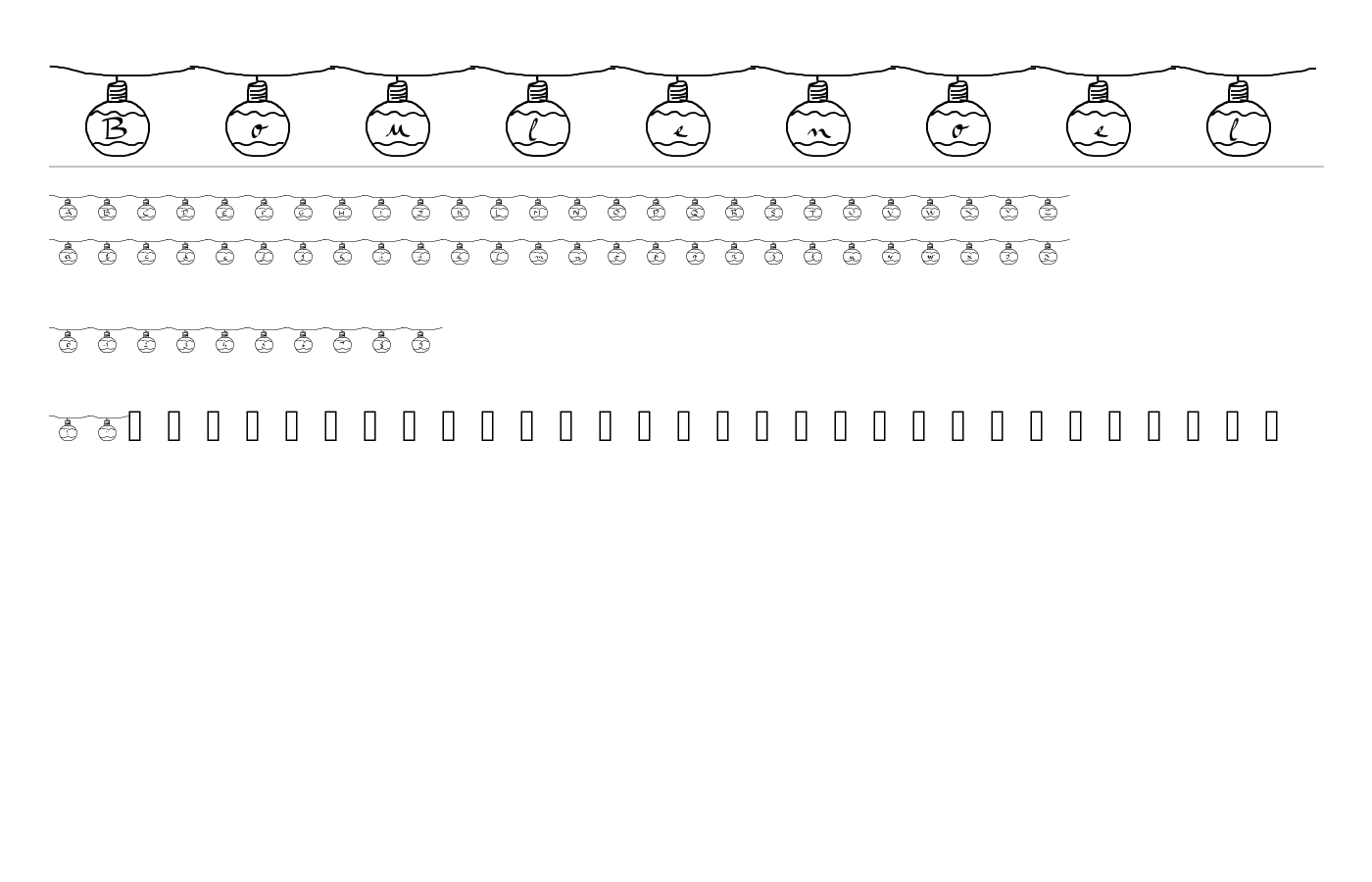
Boulenoel is a whimsical, hand-drawn decorative font featuring uppercase and lowercase letters inside Christmas baubles, evoking a festive and playful holiday spirit. Its thin, delicate strokes and unique ornament-themed style make it perfect for seasonal greeting cards, holiday invitations, and festive branding that seeks a charming and lighthearted touch. This font works best in large display sizes where its detailed, decorative nature can shine.
Boulenoel Font
About Boulenoel Font